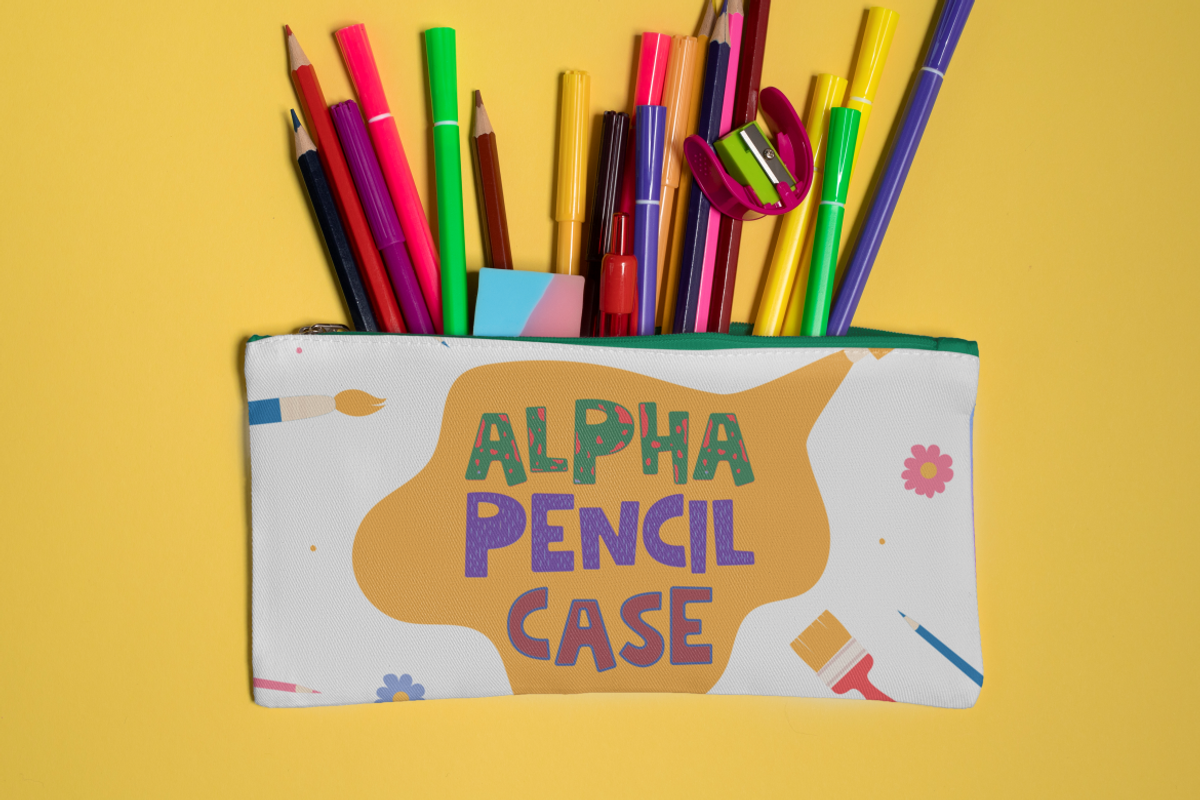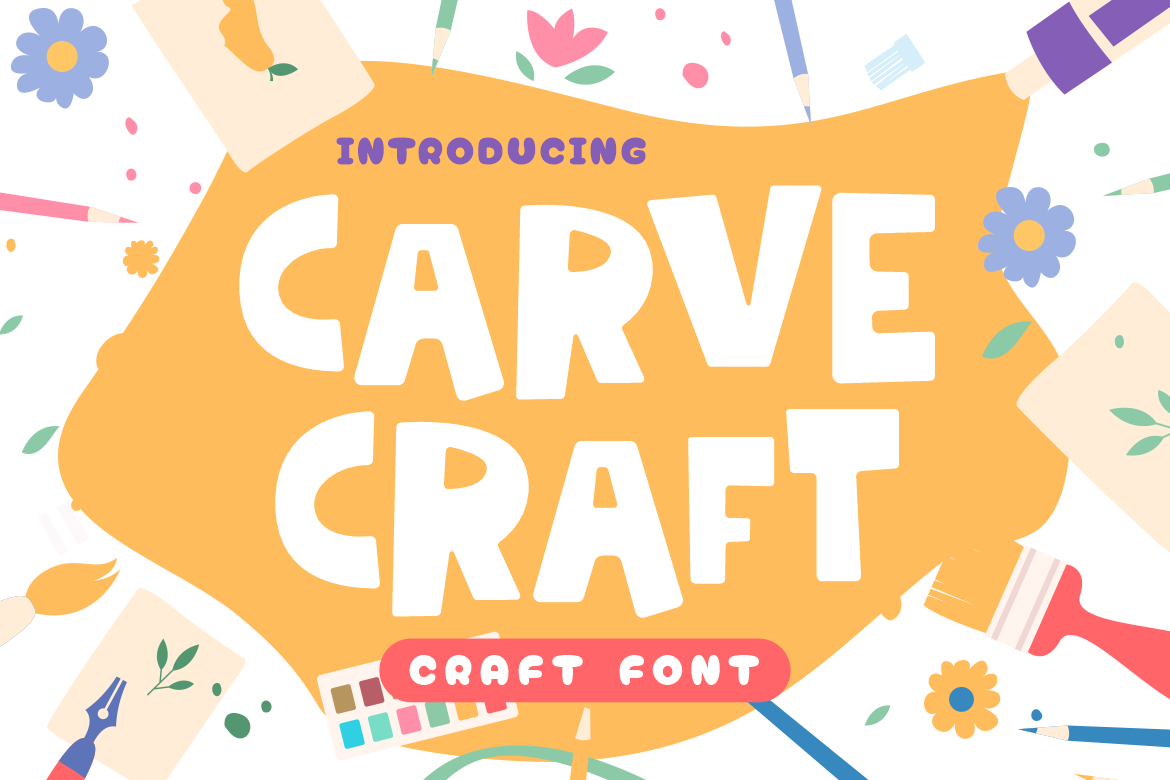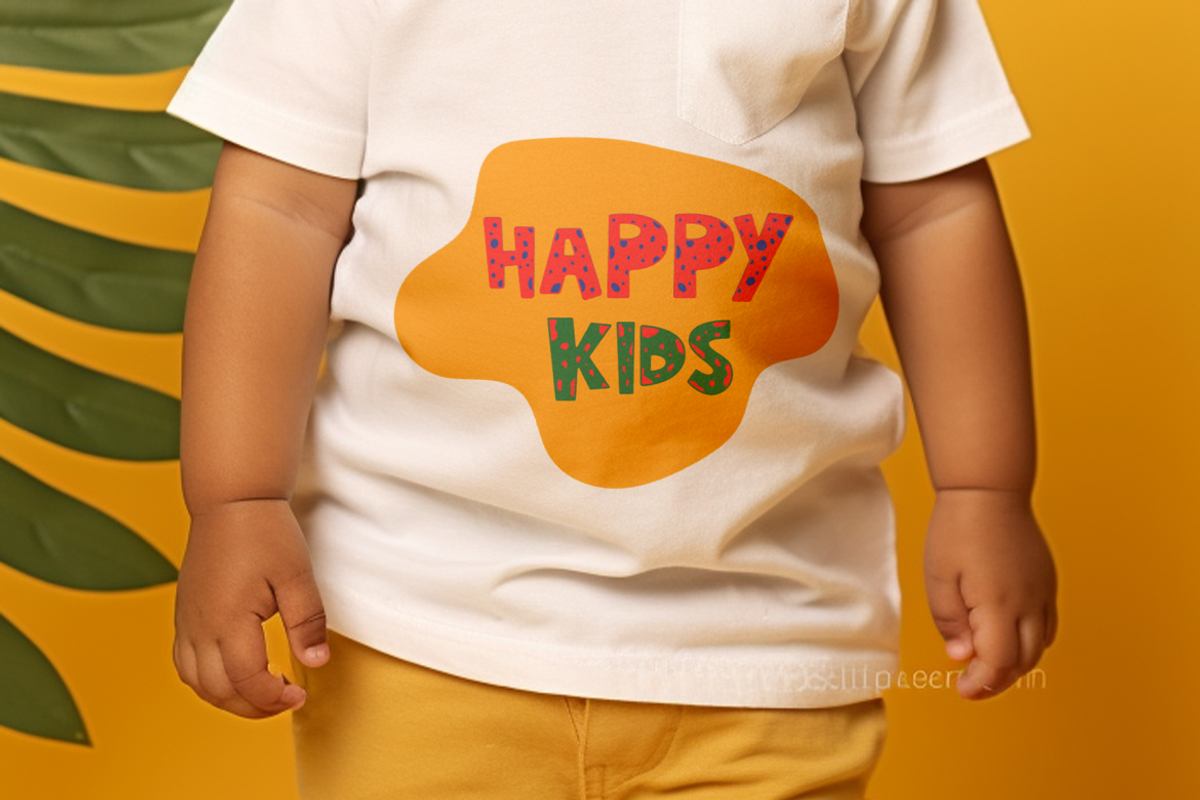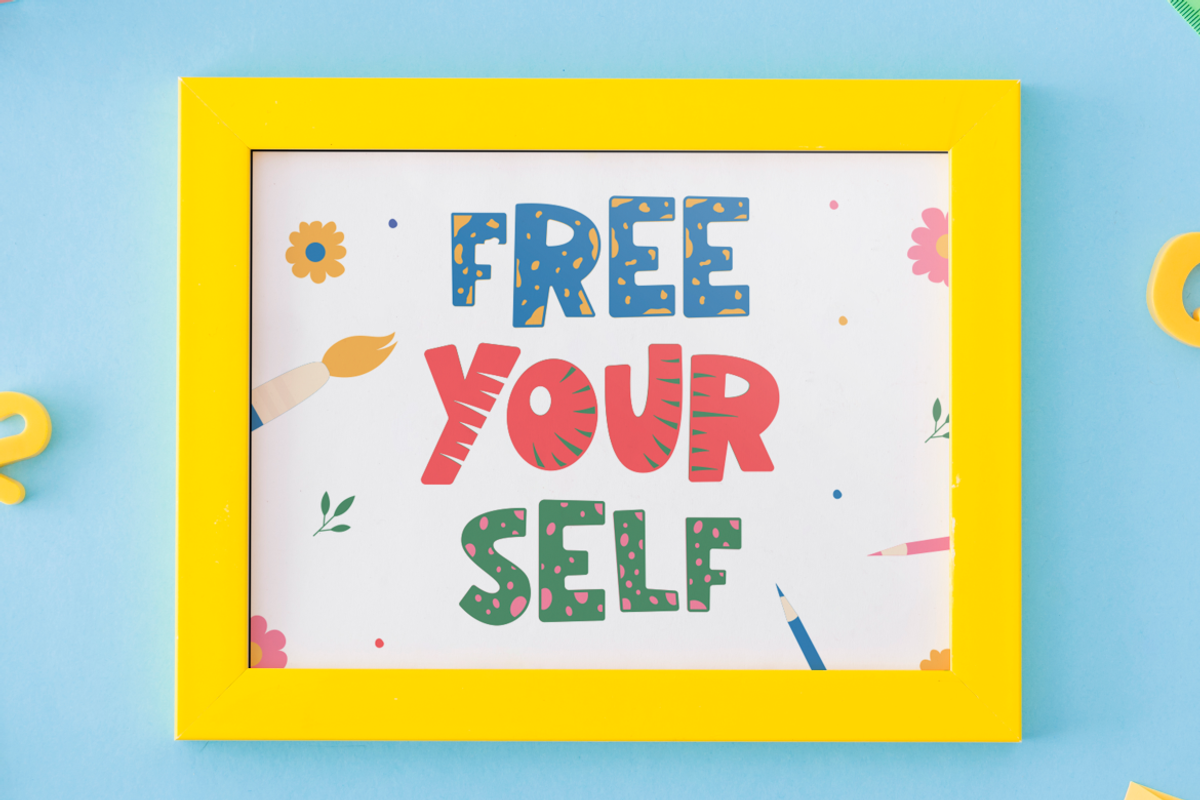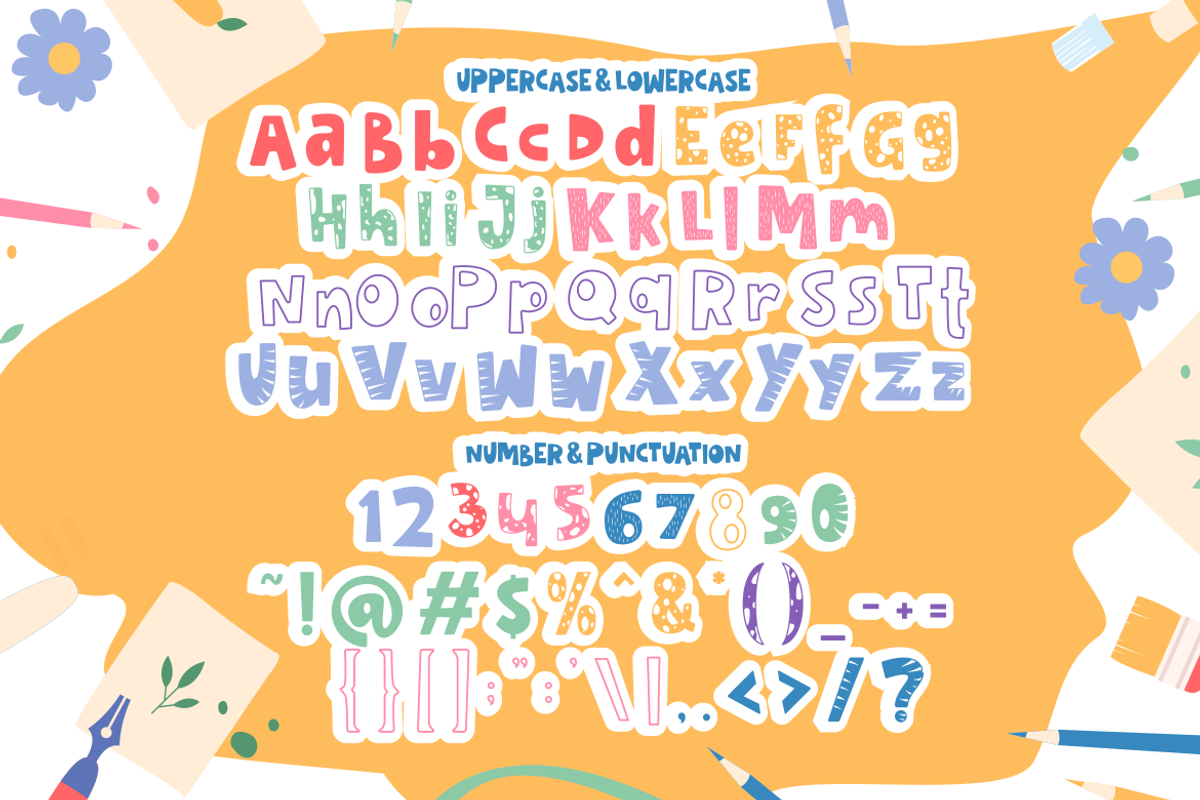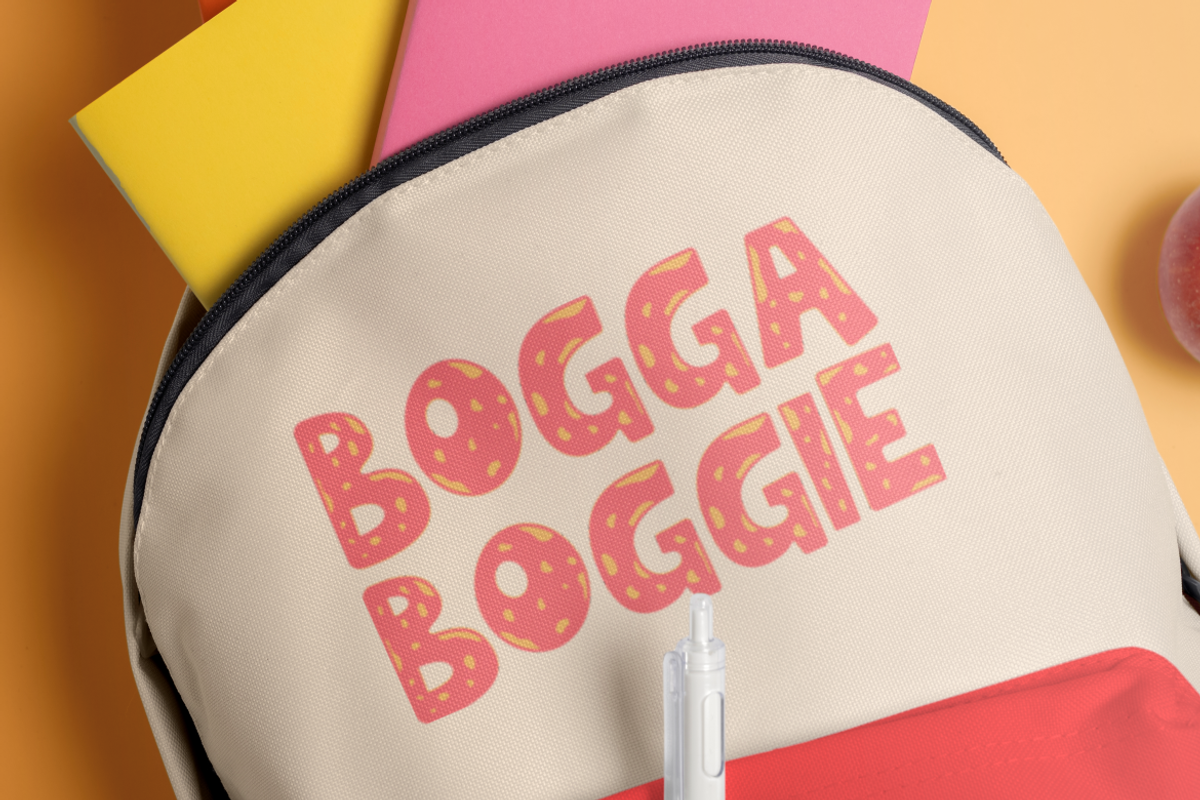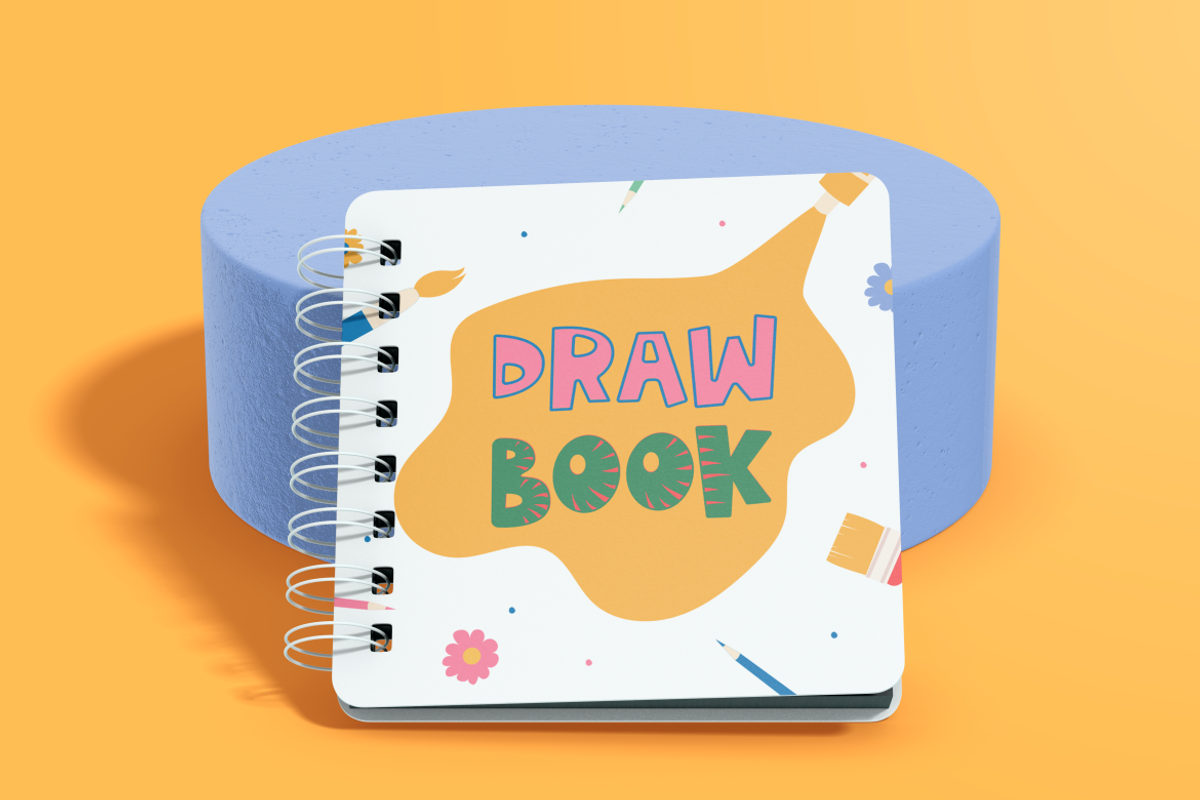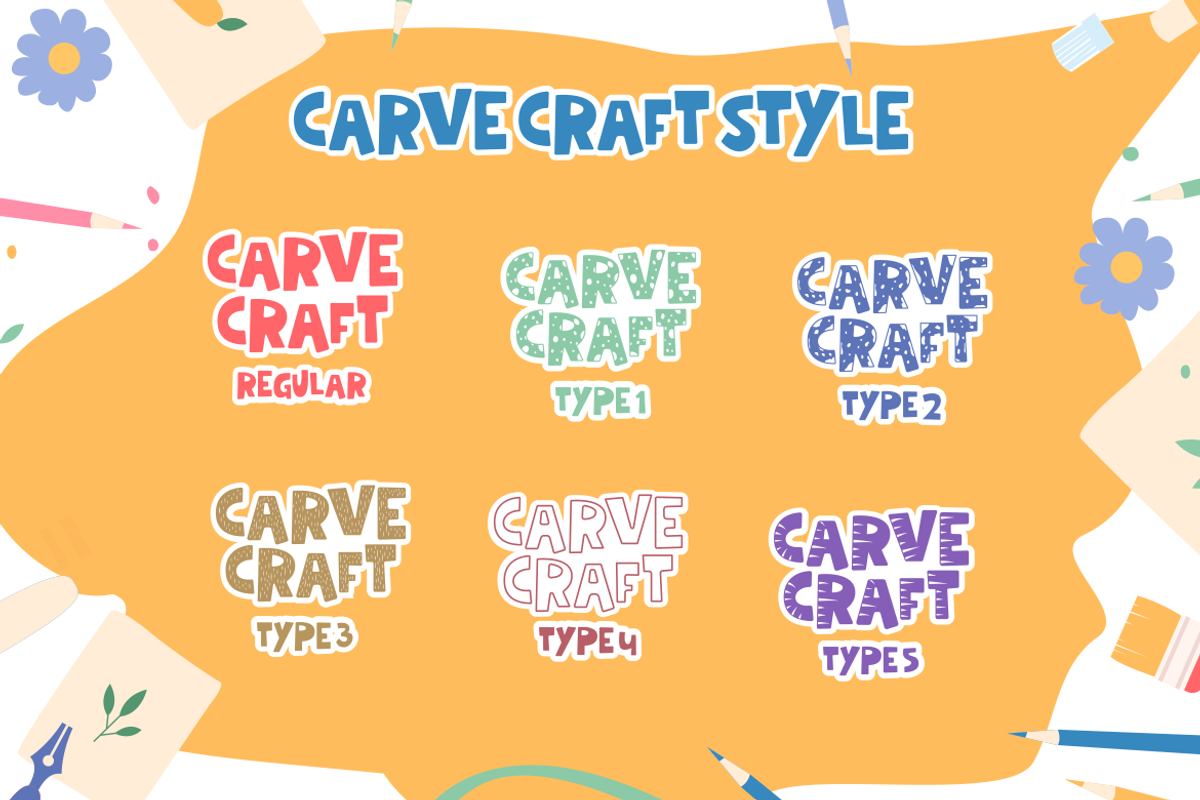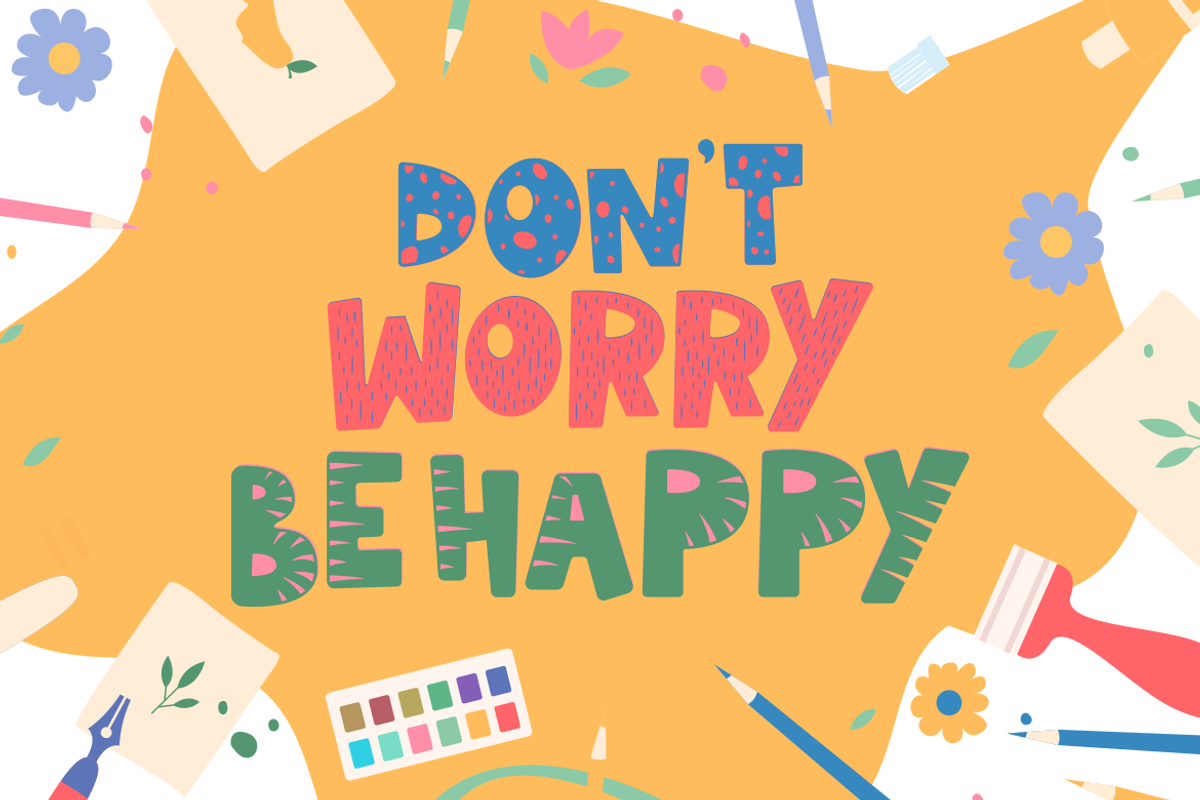
Carve Craft - Craft Font
Step into the world of creativity with Carve Craft - Craft Font, a typeface that embodies the spirit of handmade artistry. This font is not just a set of characters; it’s a toolbox for imagination, designed to bring your projects to life with its display of fun and playful letterforms. Each stroke of Carve Craft is infused with the joy of crafting, making it an ideal choice for logos, branding, and any design that calls for a personal touch. With its bold and lively style, this font dances across the page, inviting viewers into a world where creativity knows no bounds.
Carve Craft is a celebration of the craft movement, perfect for designers who believe that every detail matters. Whether you’re designing an invitation card, packaging, a poster, or a title, this font adds a unique flair that is both professional and heartwarming. It’s a versatile companion for business materials, greeting cards, stickers, children’s books, magazines, and more. With Carve Craft, your designs will speak volumes, telling stories of passion, playfulness, and the magic of creation.